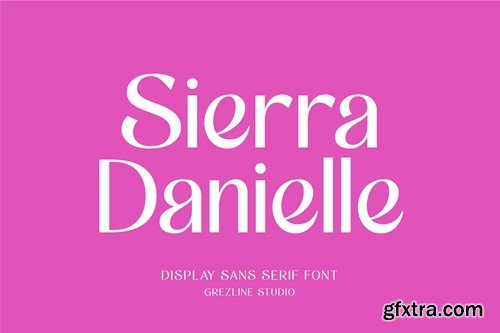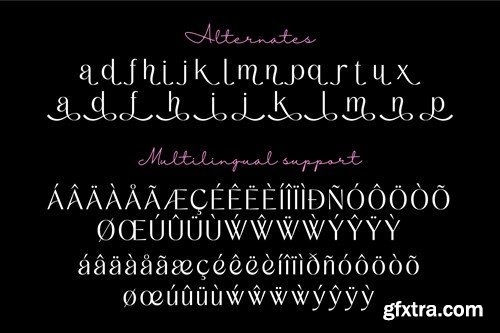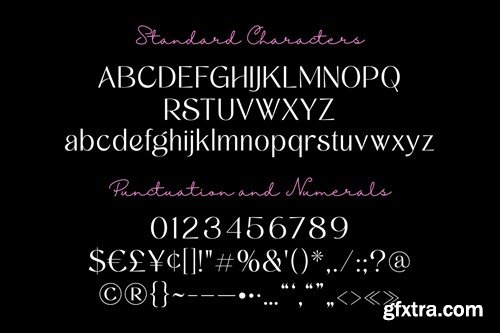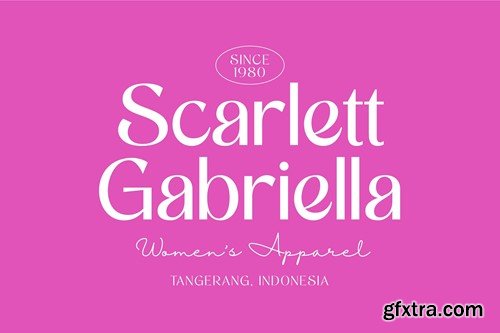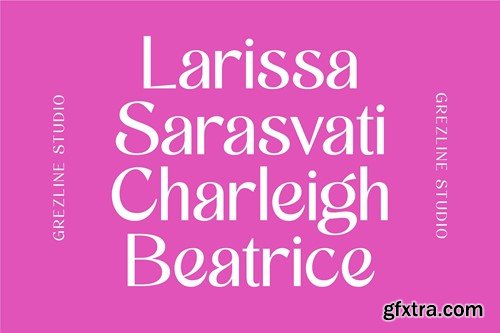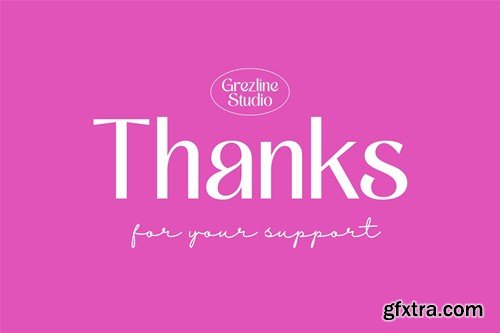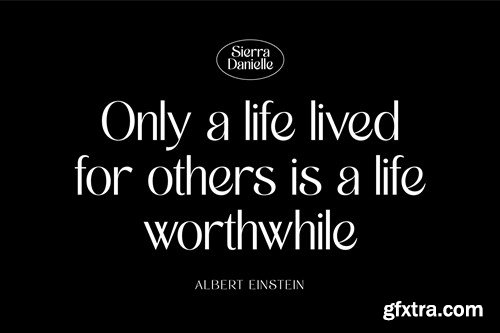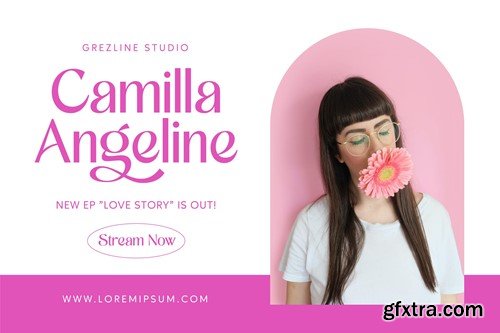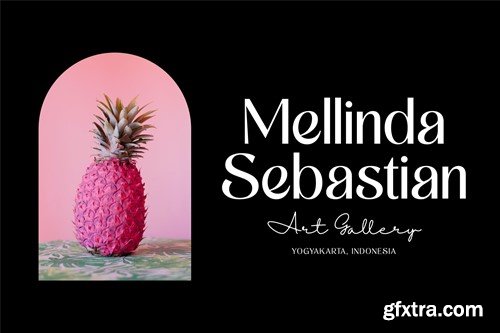
Sierra Danielle - Display Sans Serif Font 9278SUT
Sierra Danielle - Display Sans Serif Font
Sierra Danielle is a modern sans serif font with feminine characteristic. Its charm can speak to your audience, telling your story in a way that is both beautiful and meaningful. Very suitable for headlines, titles, advertising, vintage mood board, branding, logotypes, packaging, editorial design, blog/websites, social media quotes, wedding branding, vintage designs and much more.
Feature :
• Alternates and Ligatures
• Multilingual Language